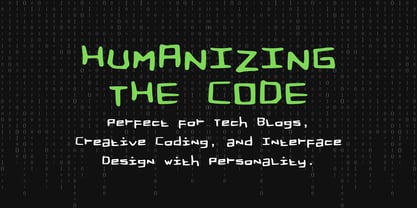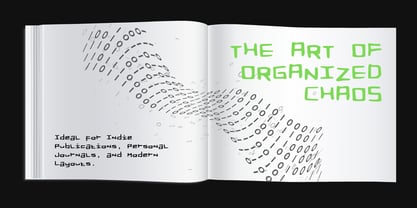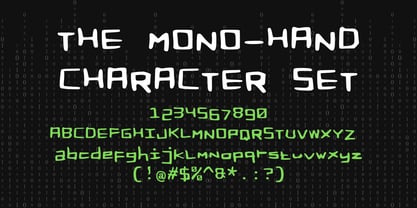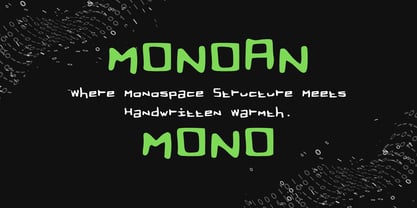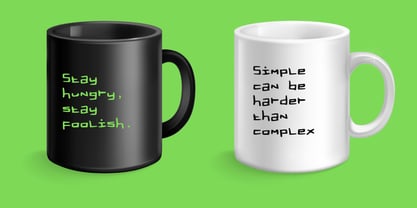
Monoan Mono
Bridge the gap between technical structure and human warmth with Monoan Mono, a unique handwritten monospace-inspired typeface. Designed to give structured layouts a personal, organic touch, Monoan Mono combines the rhythmic precision of traditional monospaced fonts with the natural, expressive flow of authentic handwriting.
Design Concept & Inspiration
Monoan Mono was born from the idea of humanizing digital code, technical documentation, and rigid grid layouts. It merges the clean alignment and legibility of functional mono fonts with the subtle imperfections and character of hand-drawn strokes. The result is a typeface that feels both organized and creatively spontaneous.
Ideal Design Uses
Monoan Mono brings a distinctive aesthetic to various creative applications:
- Editorial & Layouts: Excellent for indie zines, poetry books, personal journals, and modern recipe books.
- Tech & Developer Aesthetics: Perfect for creative coding projects, tech blog headers, UI accents, and developer portfolio highlights.
- Branding & Identity: Gives a crafted, architectural, or modern artisan vibe to coffee shop menus, apparel tags, and eco-friendly product packaging.
- Digital Content: Stand out on social media with unique code snippets, casual quotes, and minimalist promotional graphics.
Key Features & Pairing Suggestions
- Monospace-Inspired Grid Alignment: Maintains a clean, uniform structural rhythm while keeping natural stroke variations.
- Complete Character Set: Features uppercase and lowercase letters, numbers, punctuation, and functional symbols.
- Effortless Font Pairing: Monoan Mono pairs brilliantly with bold, heavy Sans-Serif titles for high contrast, or warm Serif fonts for editorial storytelling.
Add structure with personality to your next design project with the versatile charm of Monoan Mono!